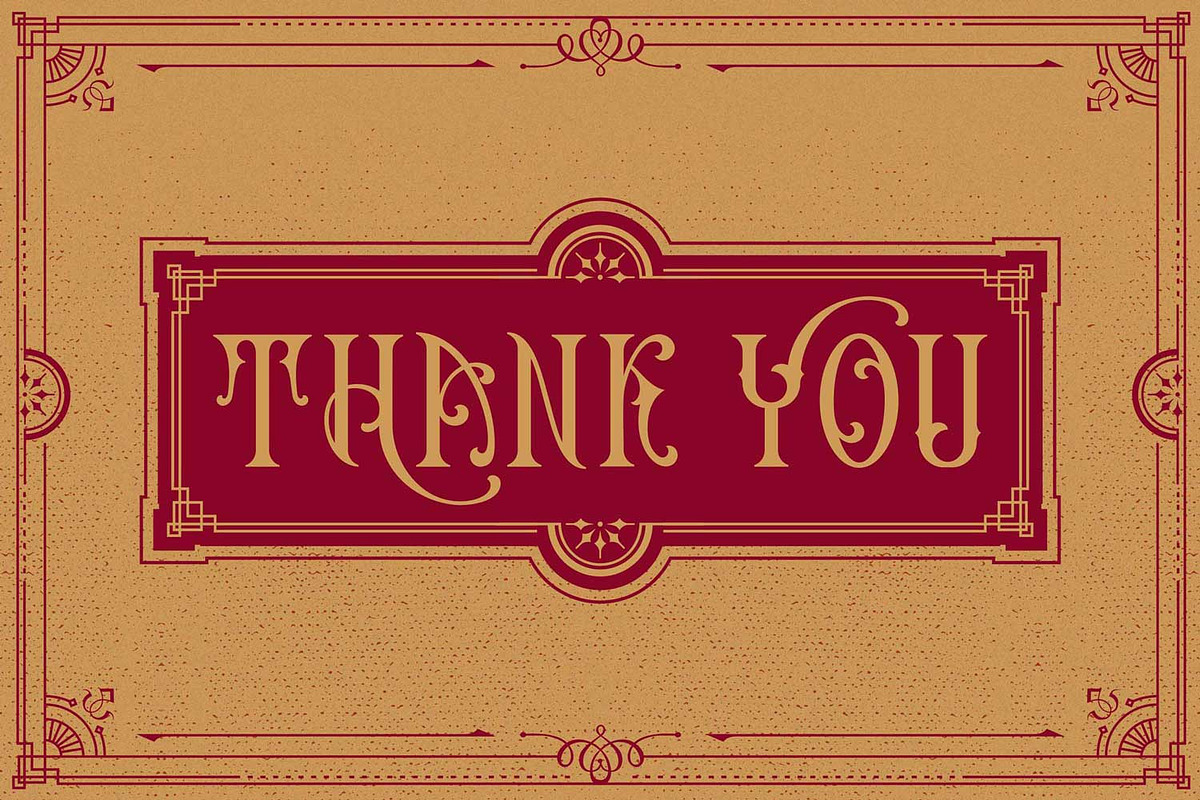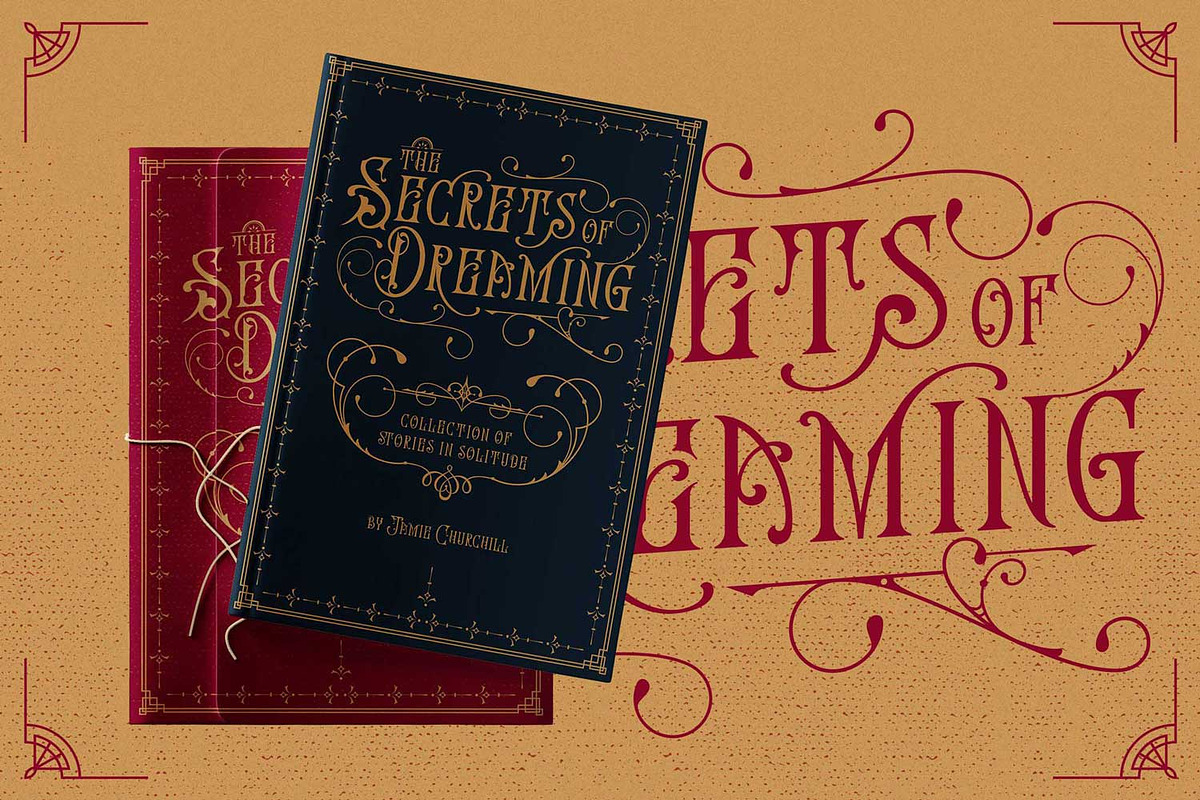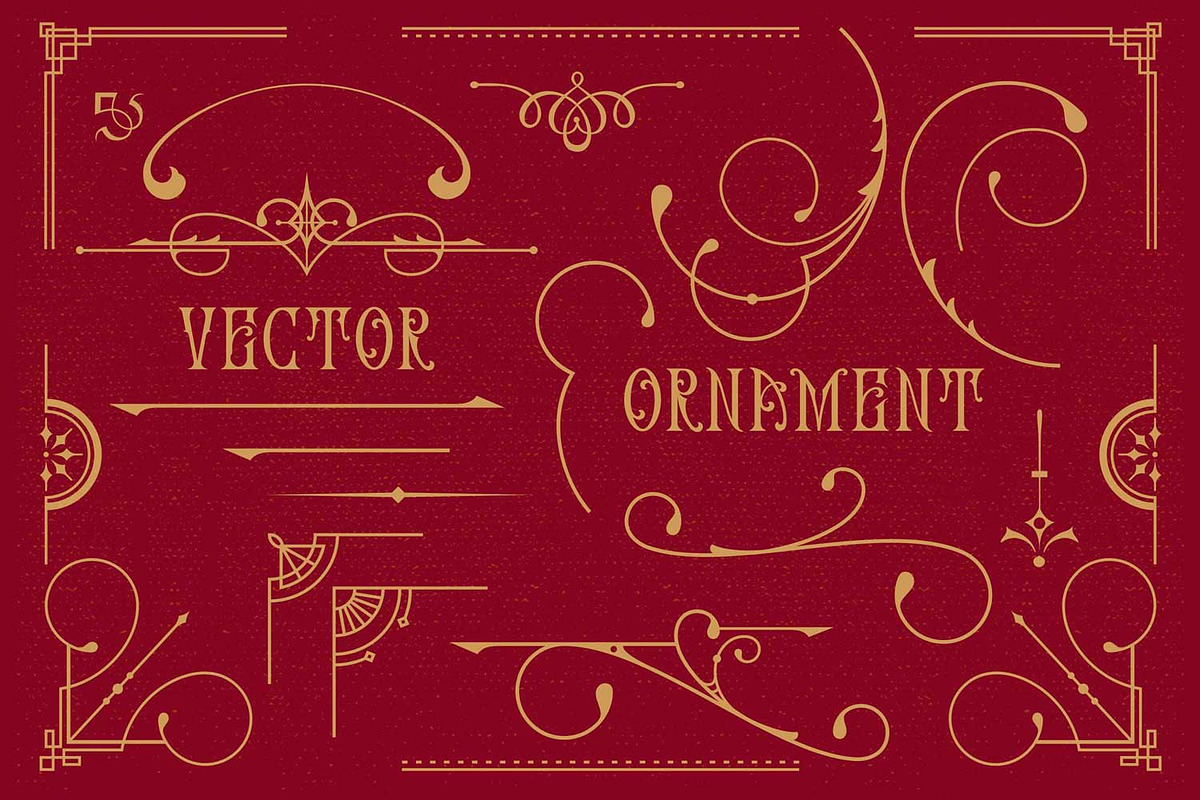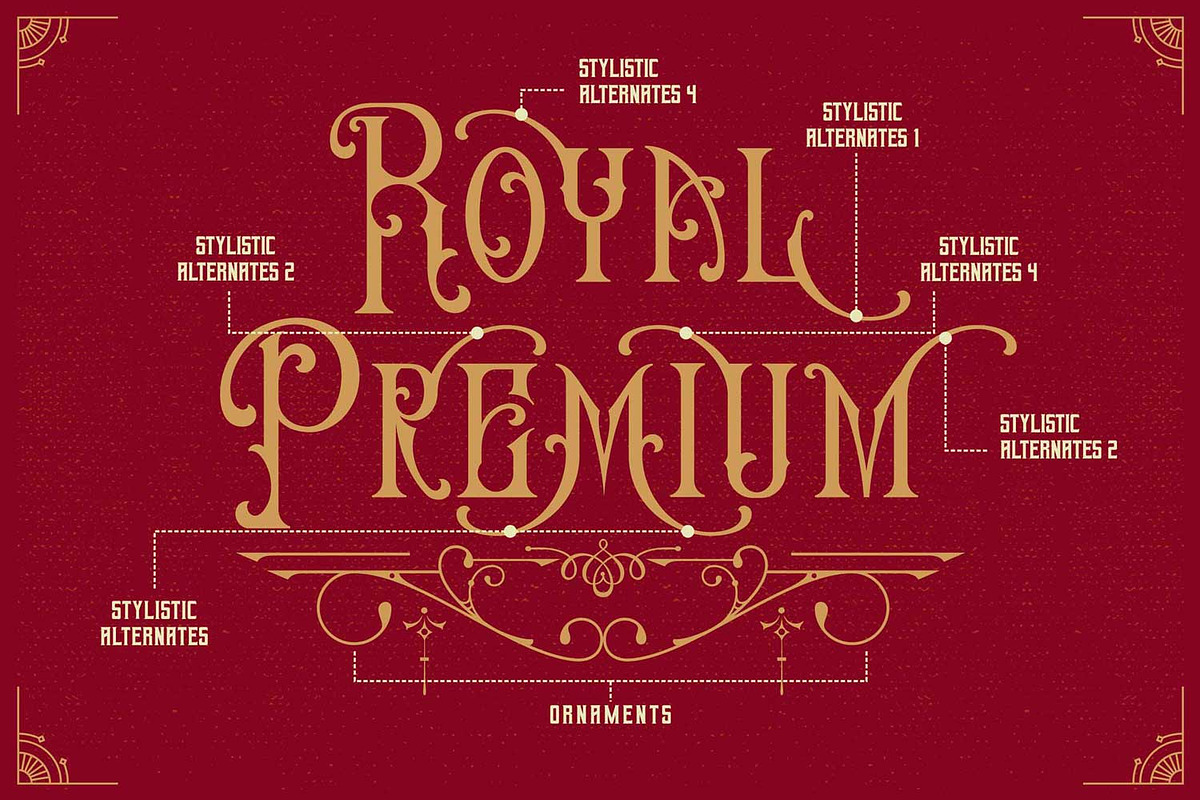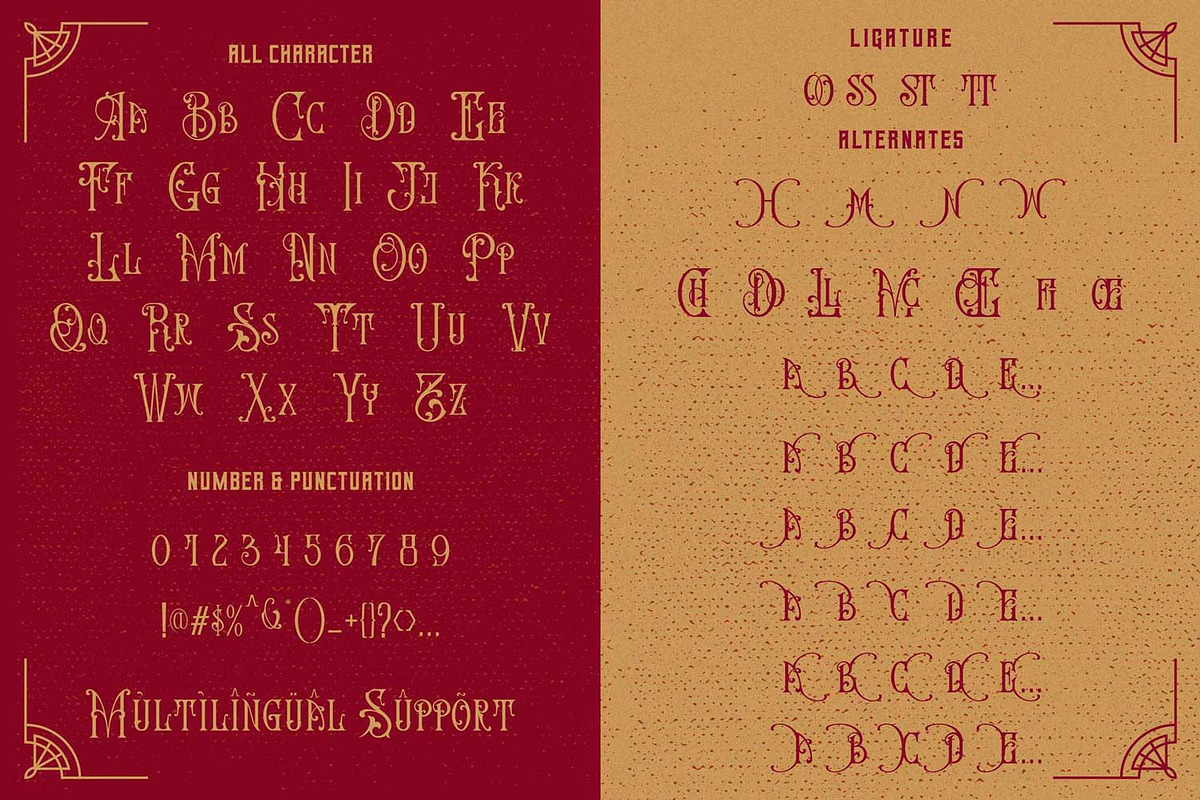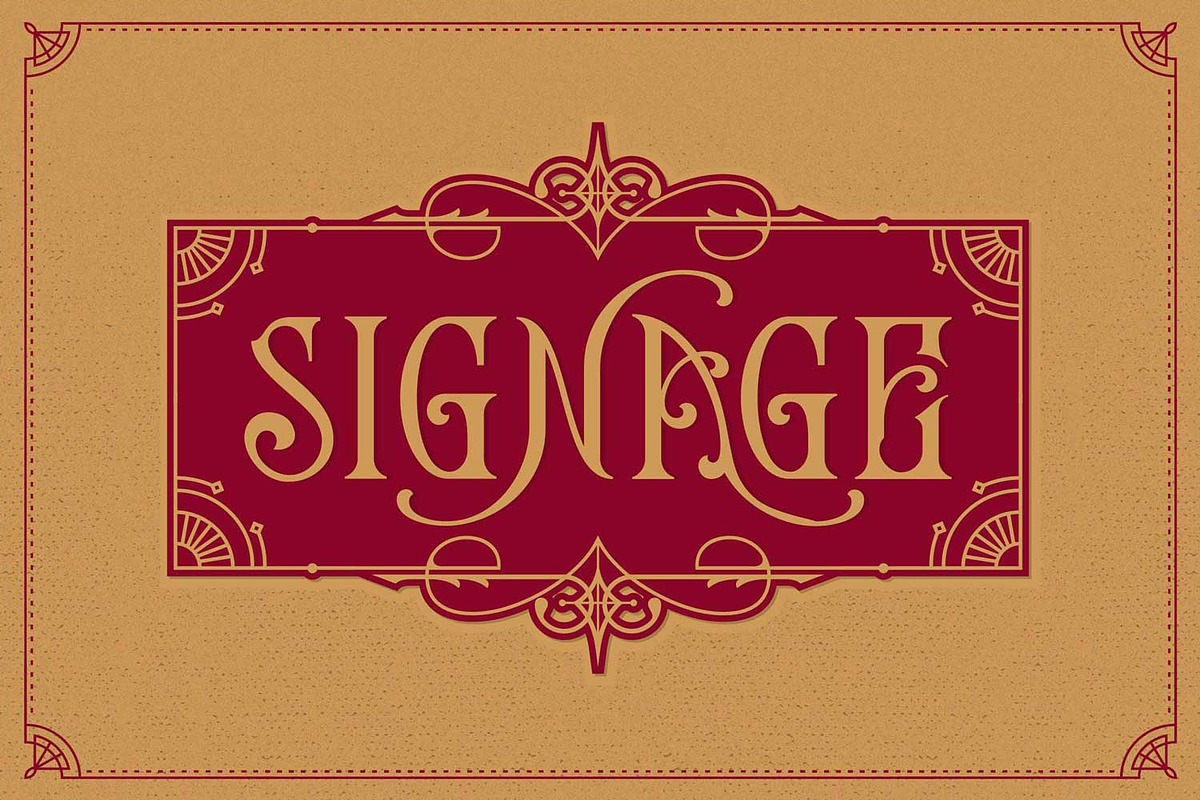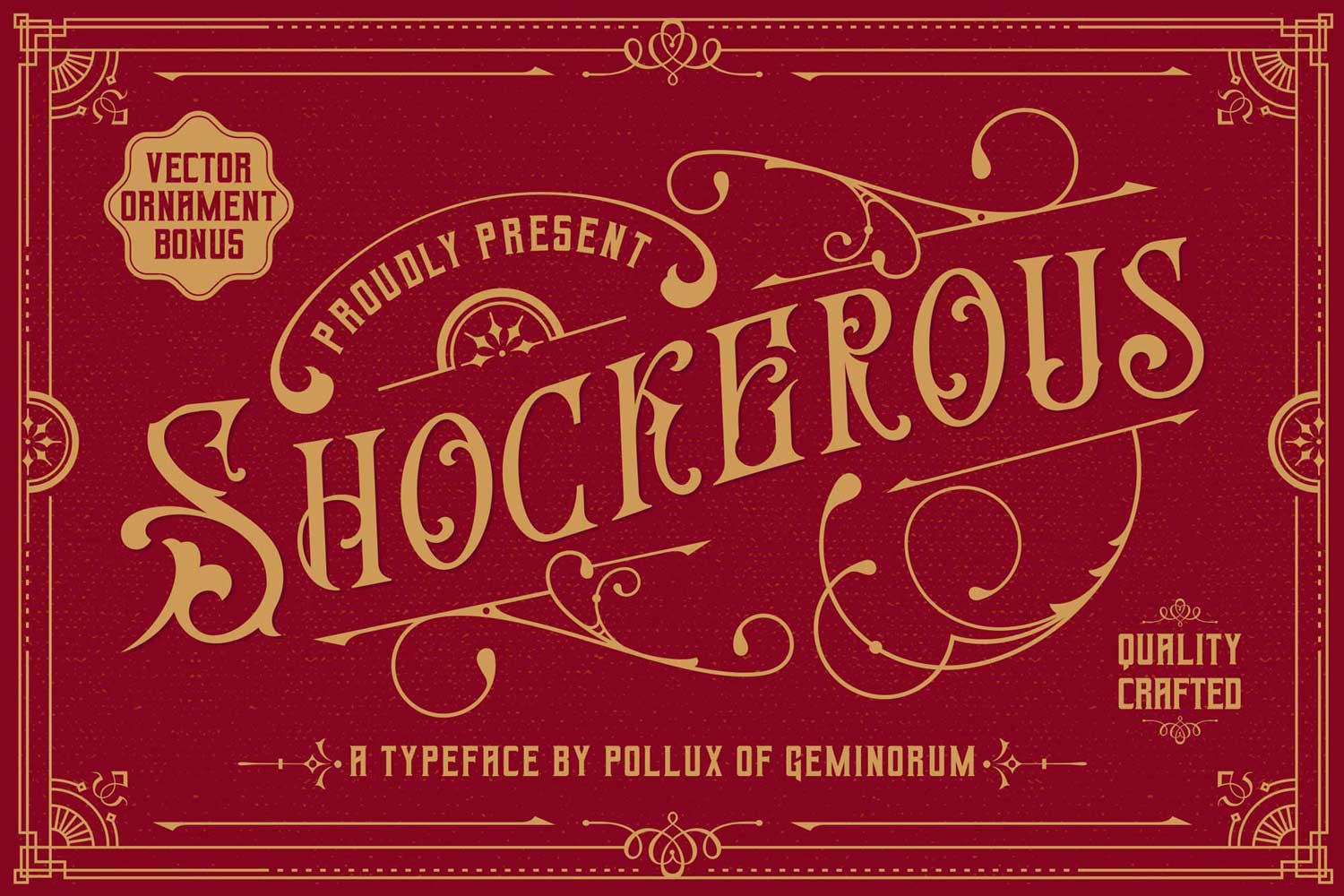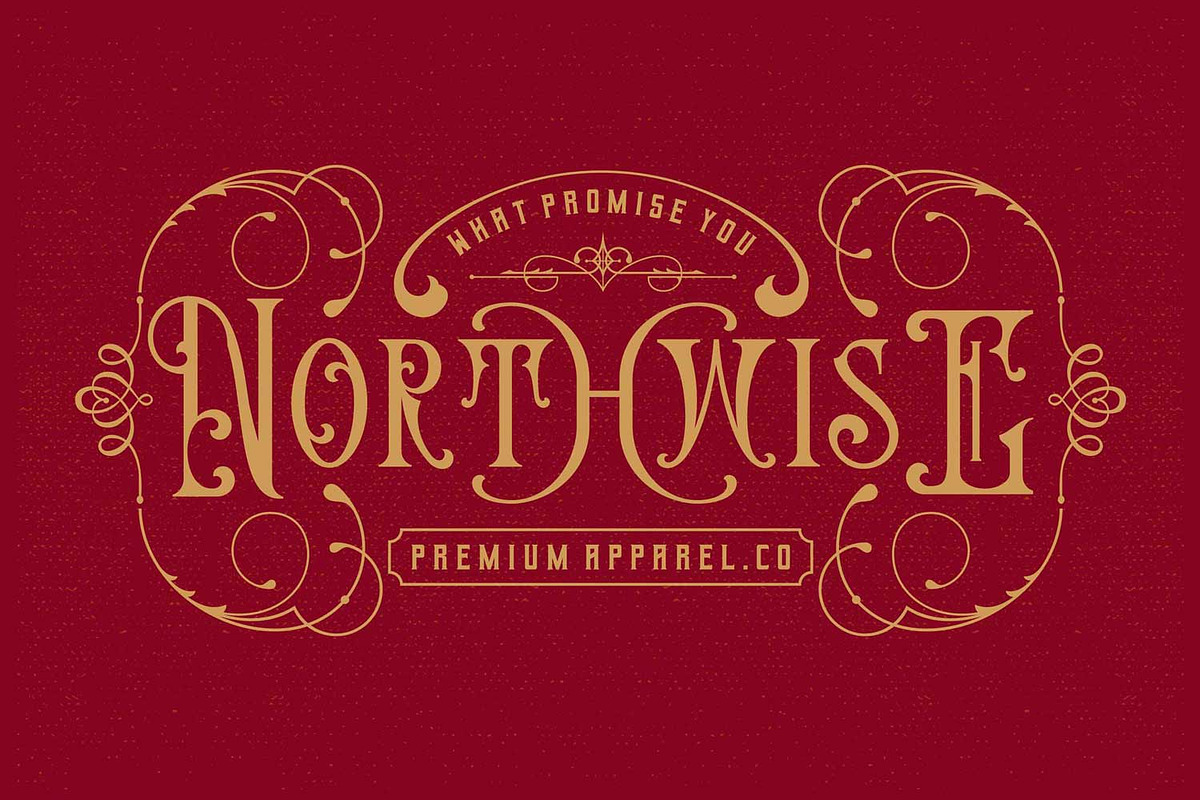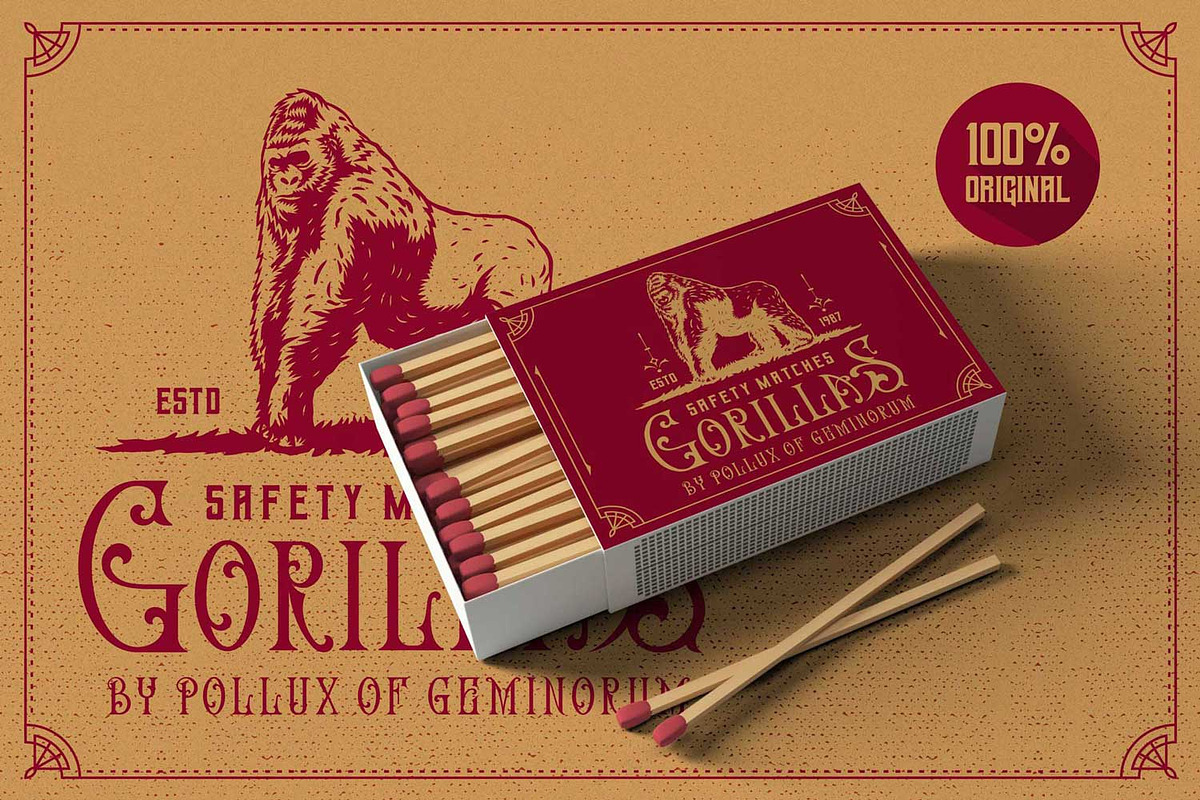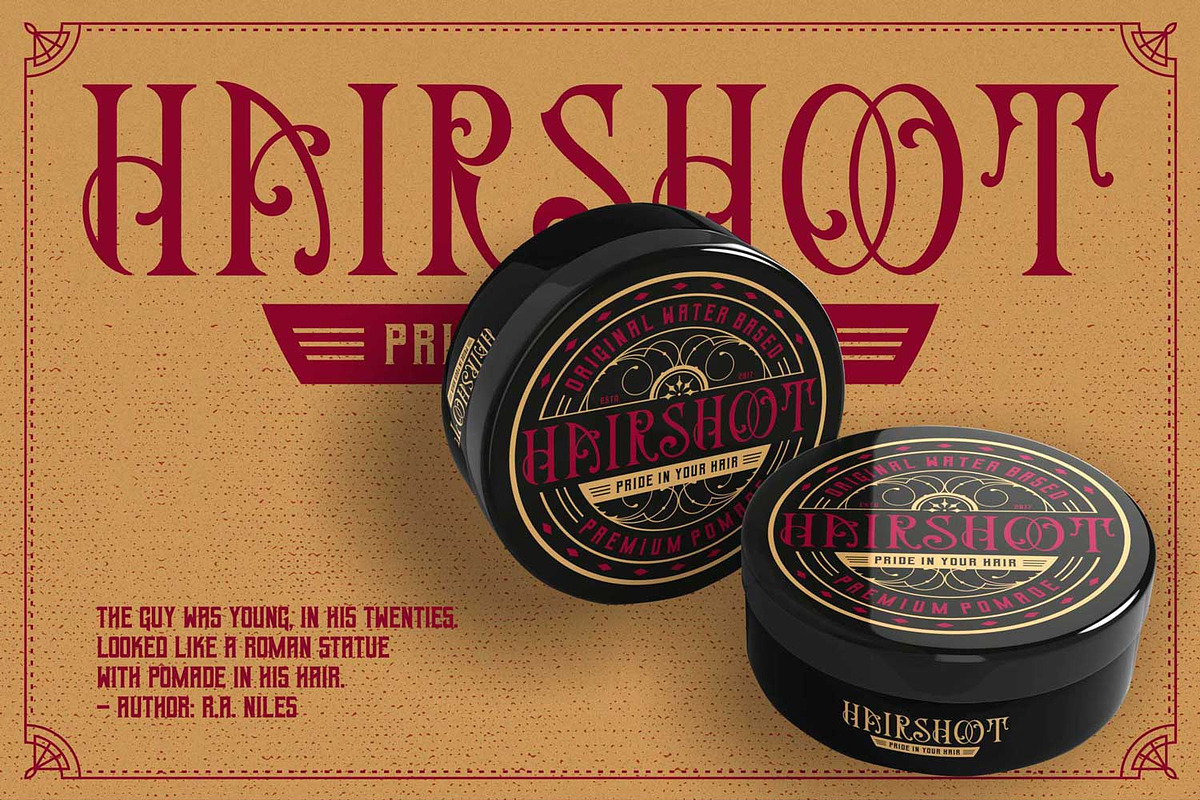
Shockerous - Victorian Vintage Font
Step into the golden age of decorative typography with Shockerous, a masterfully crafted Victorian vintage font designed for grandeur and heritage. Inspired by late 19th-century signage and letterheads, this typeface brings an authentic classic soul to modern professional branding.
Shockerous is more than just a font; it is a complete design toolkit. With its intricate curves and sharp terminals, it excels in high-impact applications. Whether you are creating a prestigious logo, a vintage-themed book cover, artisanal packaging, or a cinematic movie poster, Shockerous commands attention with unparalleled elegance.
Product Highlights:
- Authentic Victorian Aesthetic: Meticulously designed letterforms for a true heritage look.
- Bonus Vector Ornaments: Enhance your layouts with a curated collection of matching Victorian flourishes.
- Creative Versatility: Access a wide range of stylistic alternates and ligatures for bespoke typography.
- Global Language Support: Ready for international branding projects with full multilingual characters.
- Extensive Stylistic Alternates & Ligatures